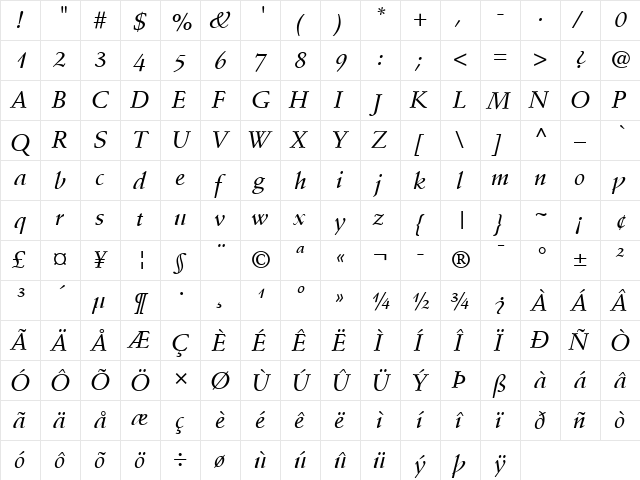
StempelSchneidler LT Medium Italic
Design Context for StempelSchneidler LT Medium Typeface
StempelSchneidler LT Medium offers clean, dependable letterforms without strong stylistic allegiance, making it a practical choice for designers who need flexibility. The slanted form adds forward momentum and visual energy. Its slender proportions lend an understated elegance to any composition.
Pro Tip: Use StempelSchneidler LT Medium for emphasis, pull quotes, and subheadings where its slanted energy can add rhythm to the layout.